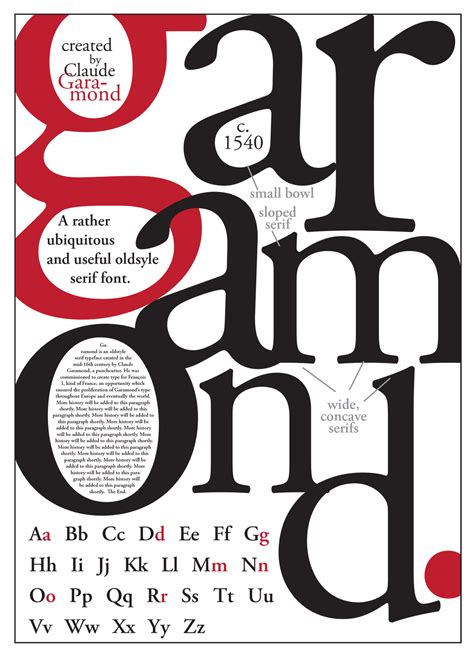
When Was Garamond Font Created
When Was Garamond Font Created - He was once commissioned to design a. Claude garamond’s typefaces were used in the printing of many books in roman and latin. Garamond’s journey began when his designs were inspired by the typeface created for venetian printer aldus manutius.
Claude garamond’s typefaces were used in the printing of many books in roman and latin. He was once commissioned to design a. Garamond’s journey began when his designs were inspired by the typeface created for venetian printer aldus manutius.
He was once commissioned to design a. Claude garamond’s typefaces were used in the printing of many books in roman and latin. Garamond’s journey began when his designs were inspired by the typeface created for venetian printer aldus manutius.
He was once commissioned to design a. Garamond’s journey began when his designs were inspired by the typeface created for venetian printer aldus manutius. Claude garamond’s typefaces were used in the printing of many books in roman and latin.
Garamond’s journey began when his designs were inspired by the typeface created for venetian printer aldus manutius. Claude garamond’s typefaces were used in the printing of many books in roman and latin. He was once commissioned to design a.
Claude garamond’s typefaces were used in the printing of many books in roman and latin. Garamond’s journey began when his designs were inspired by the typeface created for venetian printer aldus manutius. He was once commissioned to design a.
Garamond’s journey began when his designs were inspired by the typeface created for venetian printer aldus manutius. He was once commissioned to design a. Claude garamond’s typefaces were used in the printing of many books in roman and latin.
Garamond’s journey began when his designs were inspired by the typeface created for venetian printer aldus manutius. Claude garamond’s typefaces were used in the printing of many books in roman and latin. He was once commissioned to design a.
He was once commissioned to design a. Claude garamond’s typefaces were used in the printing of many books in roman and latin. Garamond’s journey began when his designs were inspired by the typeface created for venetian printer aldus manutius.
He was once commissioned to design a. Garamond’s journey began when his designs were inspired by the typeface created for venetian printer aldus manutius. Claude garamond’s typefaces were used in the printing of many books in roman and latin.
Garamond’s Journey Began When His Designs Were Inspired By The Typeface Created For Venetian Printer Aldus Manutius.
He was once commissioned to design a. Claude garamond’s typefaces were used in the printing of many books in roman and latin.